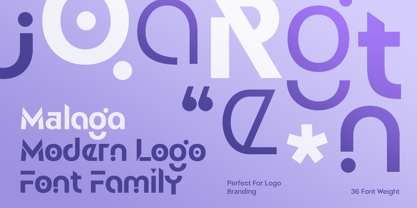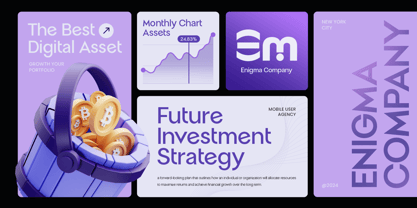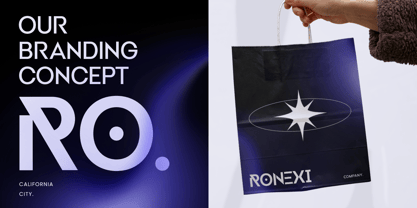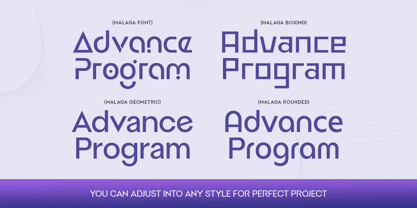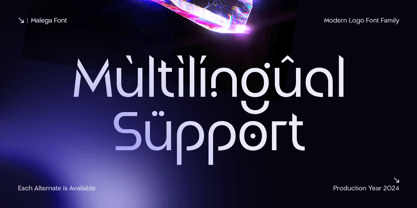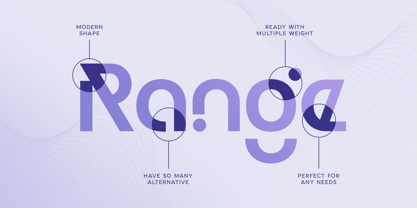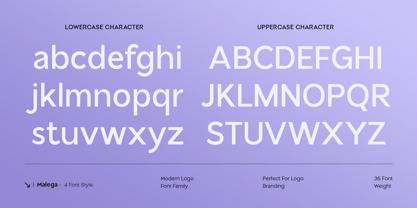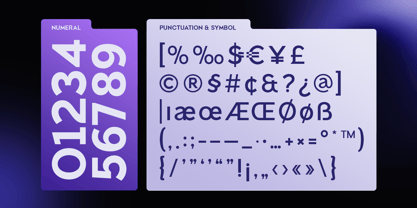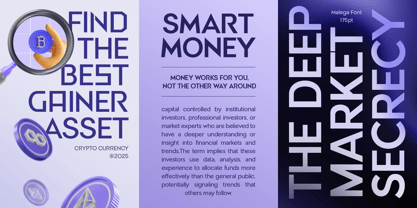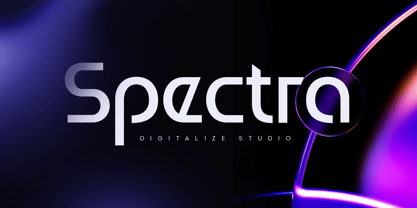
MALEGA is a modern logo font family crafted for designers who prioritize clarity, minimalism, and strong visual identity. With clean geometric construction and refined proportions, this family is perfect for building cohesive branding systems across logos, packaging, editorial layouts, and digital products.
Featuring multiple weights, MALEGA adapts effortlessly to a wide variety of styles—from bold headline identities to subtle body text. Its smooth curves and consistent rhythm provide a professional and timeless aesthetic ideal for corporate brands, creative studios, tech companies, and lifestyle products.
Whether you’re designing a modern identity, website interface, or premium print materials, MALEGA offers the versatility, elegance, and structure needed for high-quality branding.
MALEGA – Modern Logo Font Family Features
Complete modern sans serif font family with multiple weights
Perfect for branding, logos, packaging, and editorial design
Clean geometric letterforms with balanced minimal aesthetics
Ideal for corporate, tech, fashion, and creative industries
Uppercase, lowercase, numerals, and punctuation included
OpenType features for advanced typographic flexibility
Multilingual Support
Supports: Afrikaans, Albanian, Asu, Basque, Bemba, Bena, Breton, Chiga, Cornish, Dutch, English, Estonian, Filipino, Finnish, Friulian, Galician, German, Gusii, Indonesian, Irish, Italian, Kabuverdianu, Kalenjin, Kinyarwanda, Luo, Luxembourgish, Luyia, Machame, Makhuwa-Meetto, Makonde, Malagasy, Manx, Morisyen, North Ndebele, Nyankole, Oromo, Portuguese, Quechua, Romansh, Rombo, Rundi, Rwa, Samburu, Sango, Sangu, Scottish Gaelic, Sena, Shambala, Shona, Soga, Somali, Spanish, Swahili, Swedish, Swiss, and more.
Build a modern, minimal, and consistent identity with MALEGA – the ultimate font family for stylish, professional, and contemporary branding. ✨